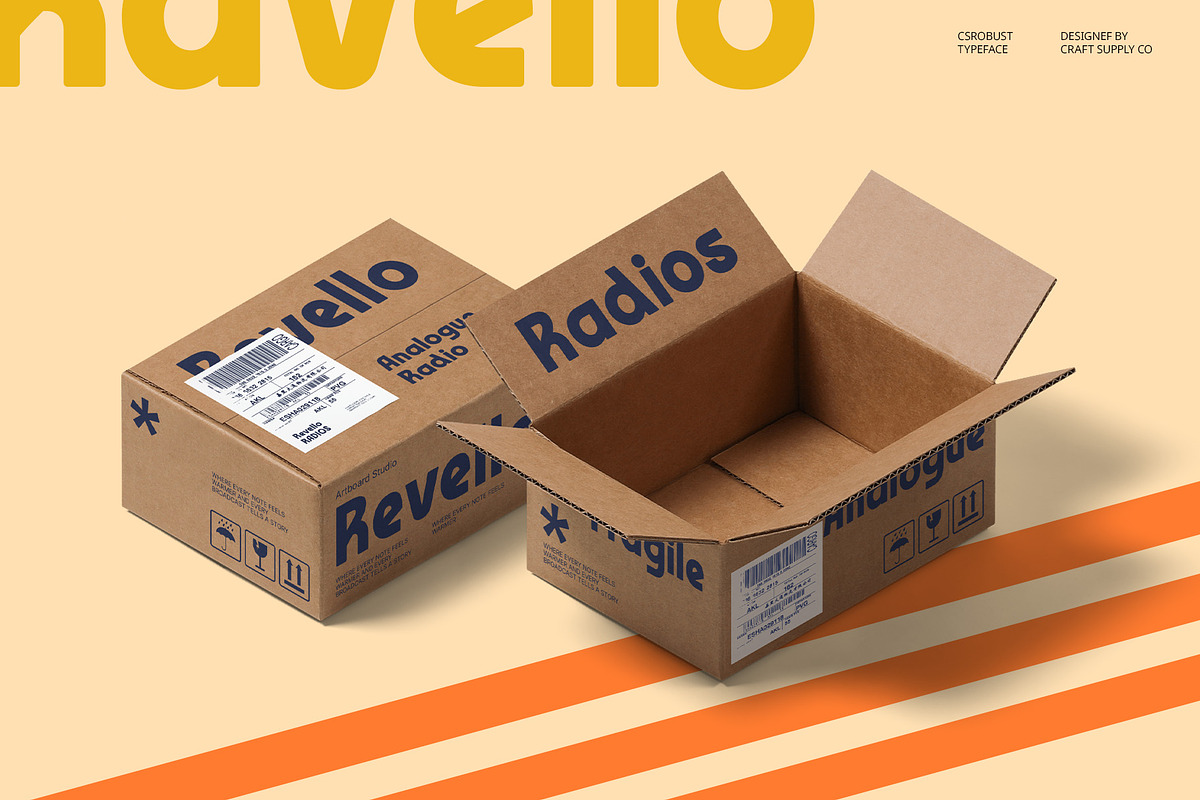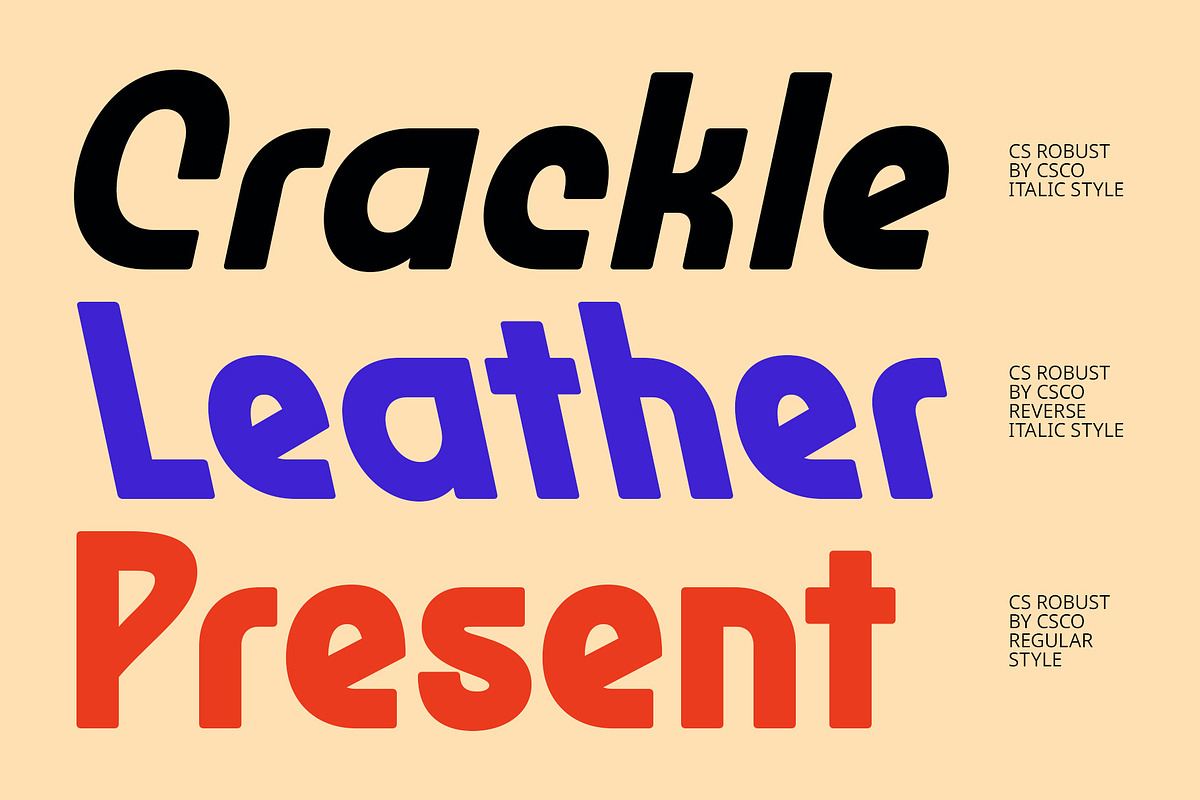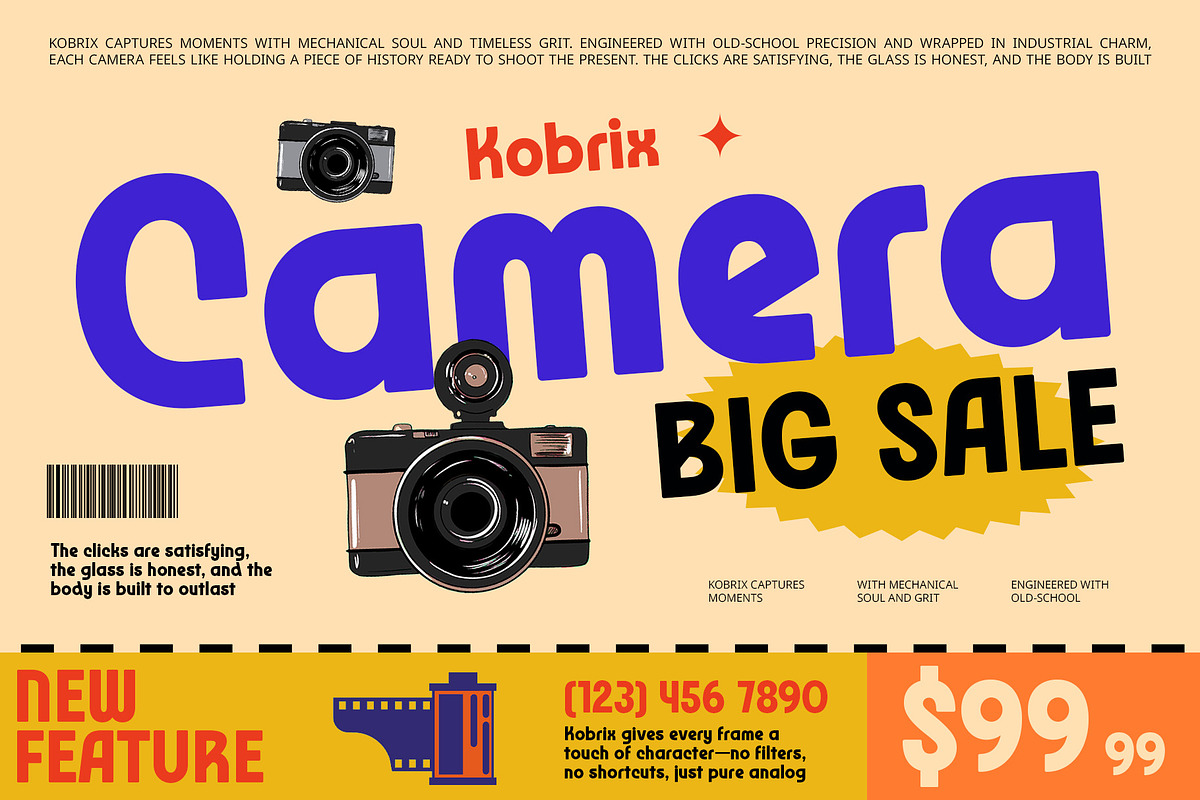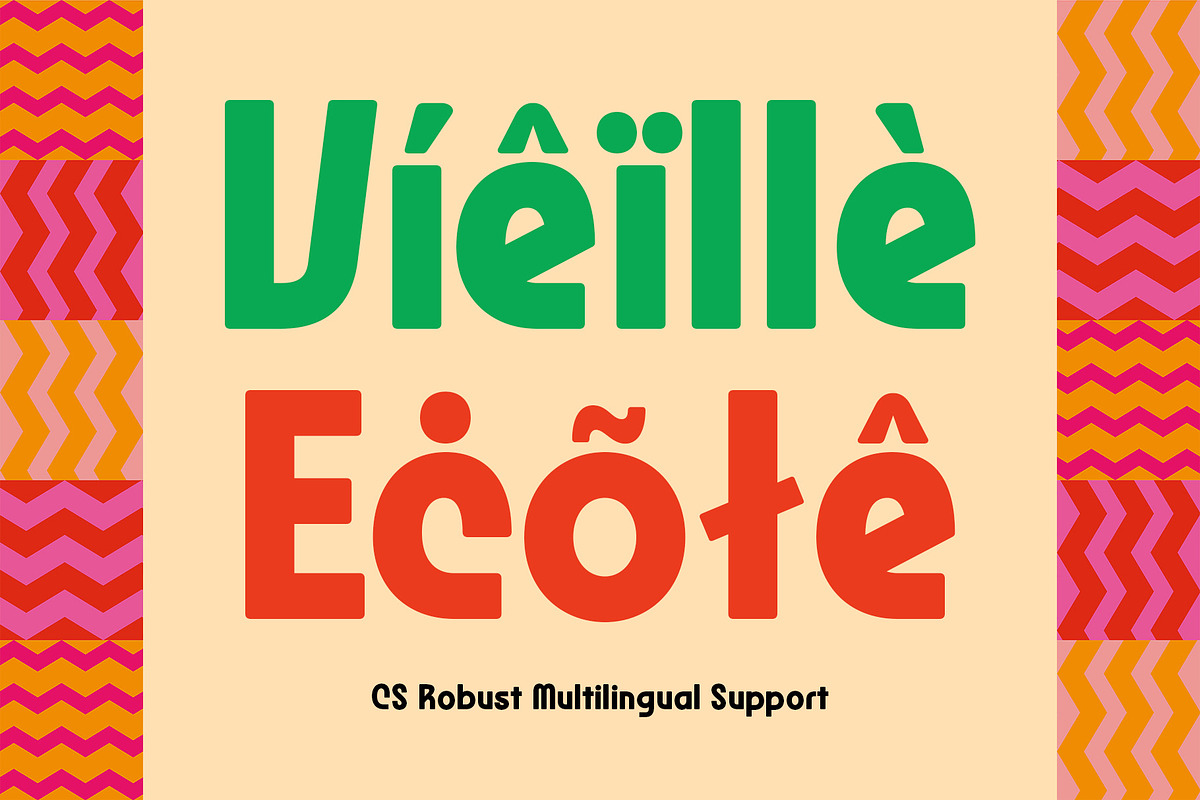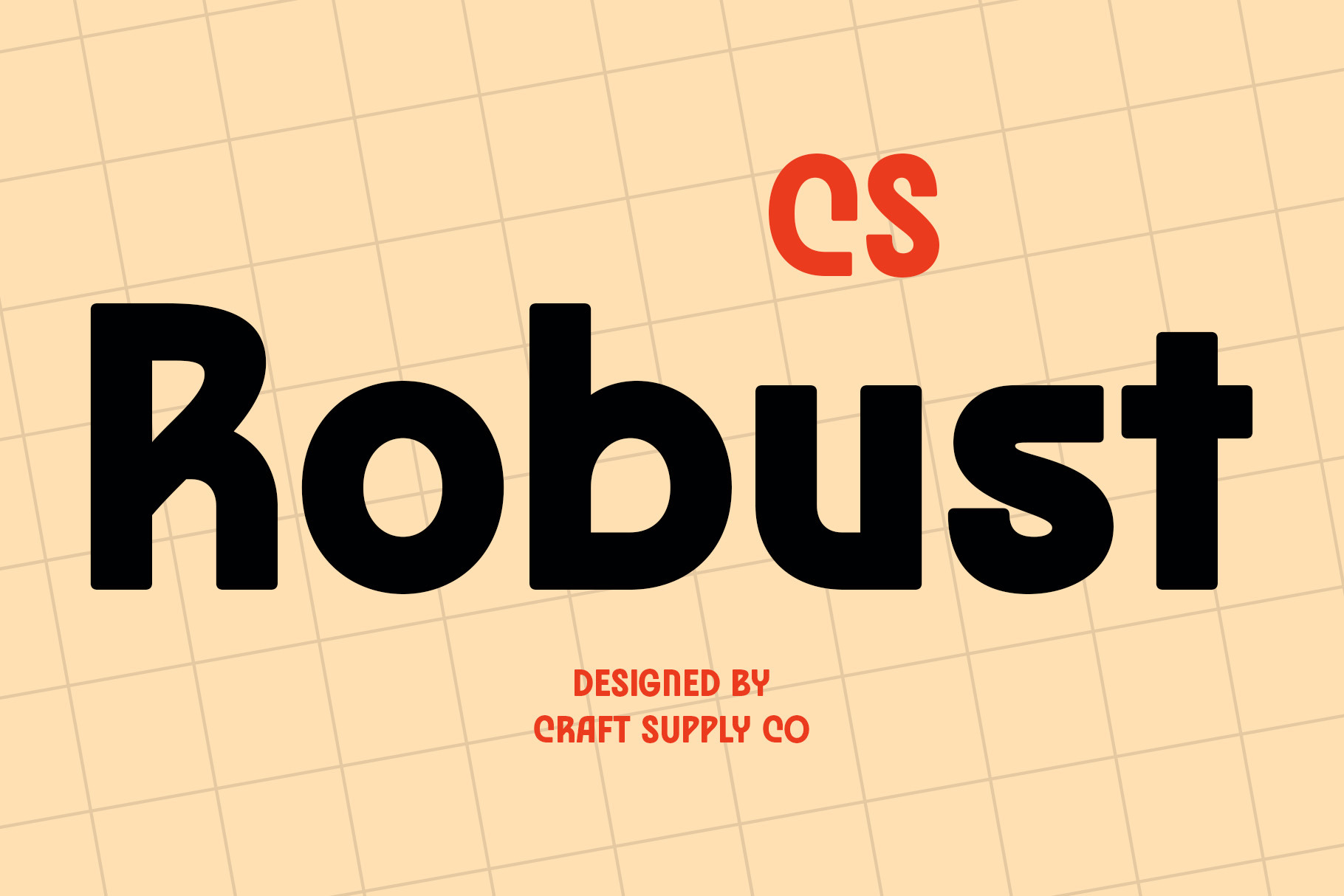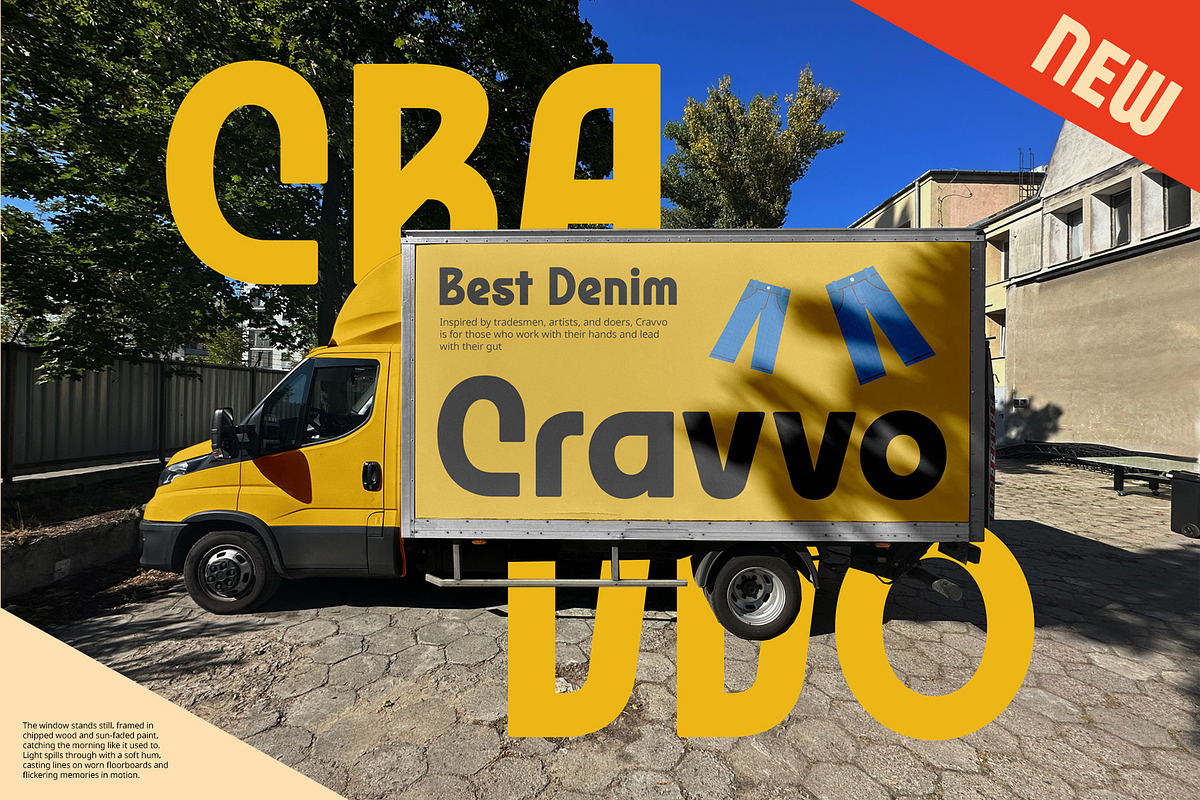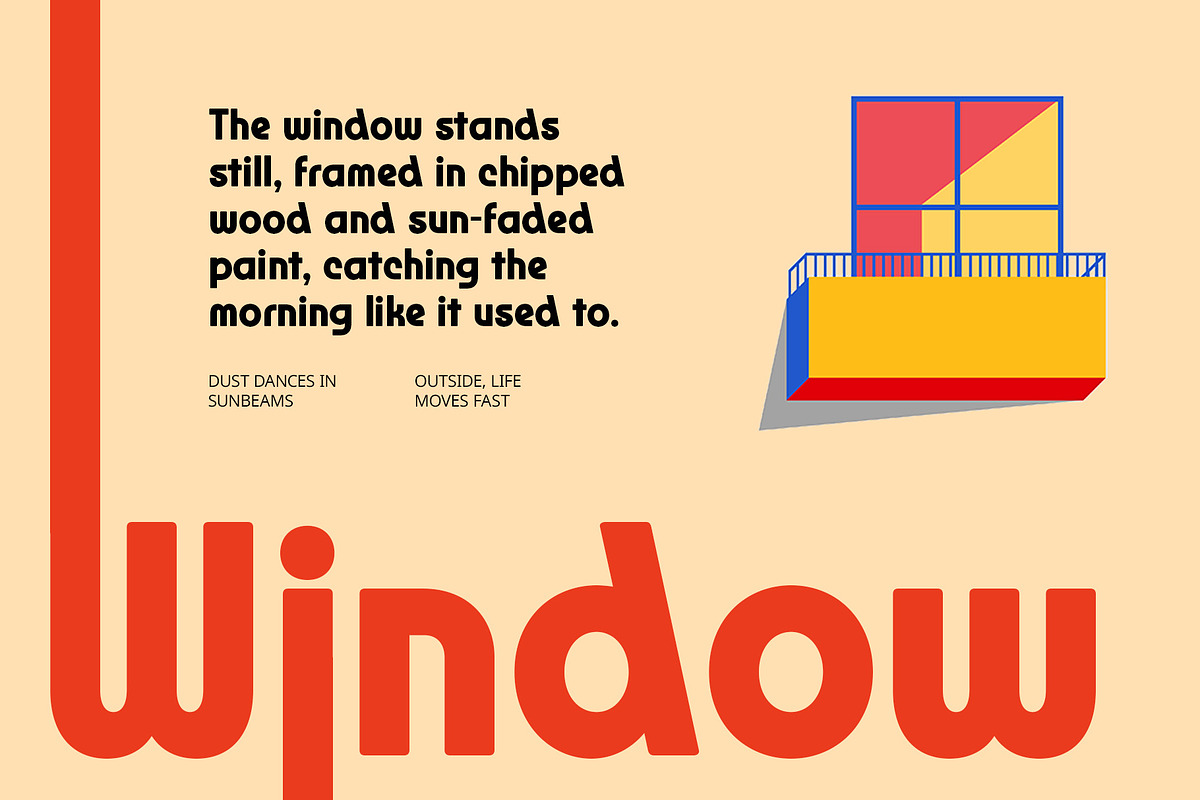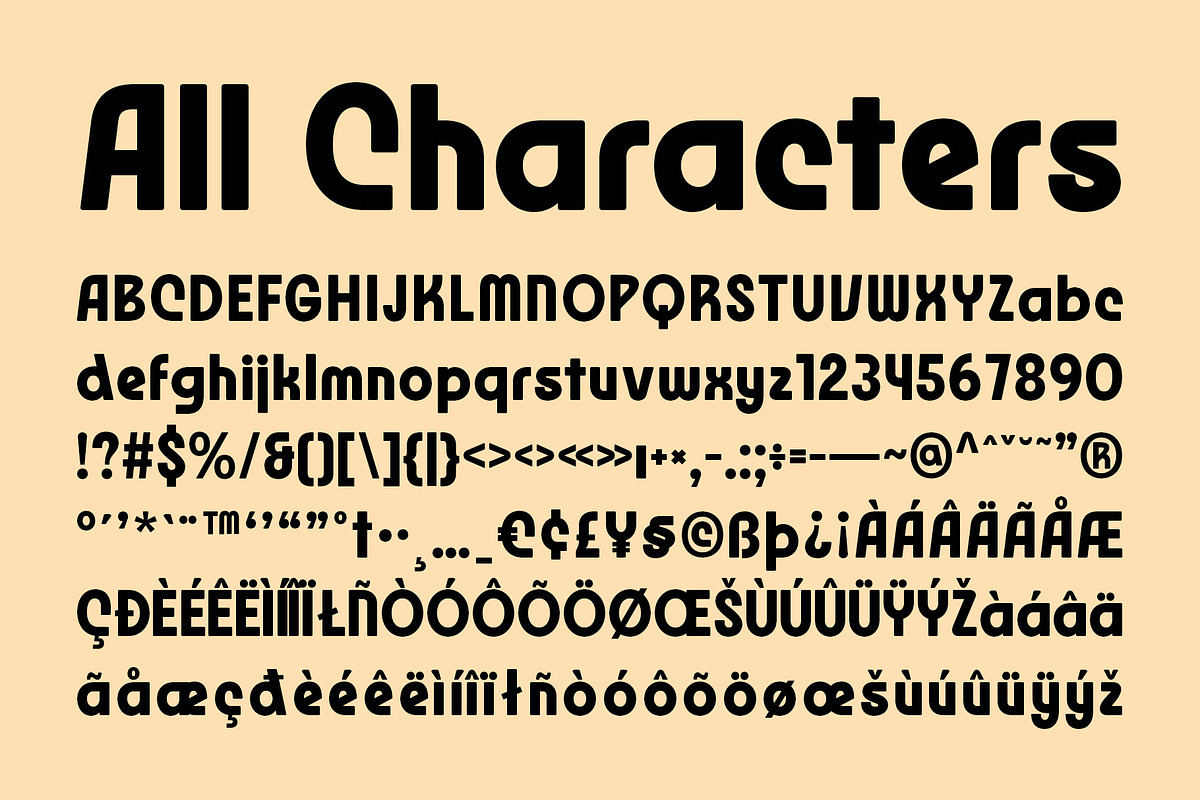
CS Robust – Bold Font
CS Robust – Bold Font: Retro Energy with a Bold Personality
Distinctive and Playful Letterforms CS Robust – Bold Font is a bold sans-serif display font that exudes energy and style. Its thick letterforms paired with playful curves create a vibrant and dynamic appearance, making it stand out in any design project.
Retro Aesthetic Meets Modern Appeal With its retro-inspired design, CS Robust adds a touch of nostalgia while maintaining a contemporary edge. The bold structure enhances readability, while the funky vibe brings a fun and unique character to each letterform.
Perfect for Vibrant, High-Energy Designs Ideal for music posters, creative branding, and visual projects that need to capture attention, CS Robust is the perfect choice for bold, energetic designs. Whether you’re crafting posters for a concert or building a distinctive brand identity, this font delivers a memorable and striking impression.
Versatile for Various Creative Applications Despite its bold appearance, CS Robust offers flexibility across multiple creative platforms. From logos to digital ads, this font adapts easily to projects requiring both personality and readability, making it a go-to choice for bold visual statements.